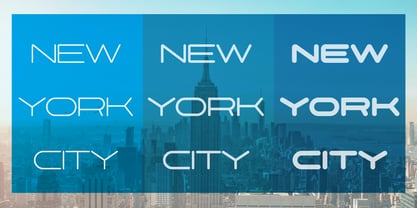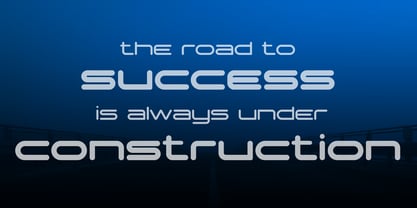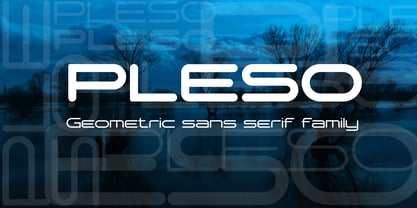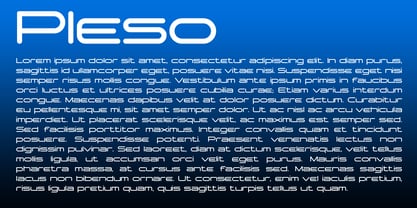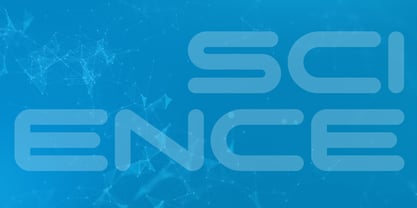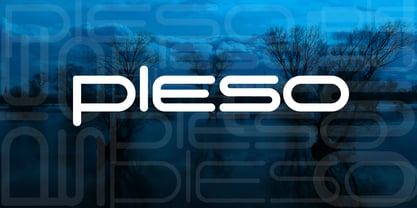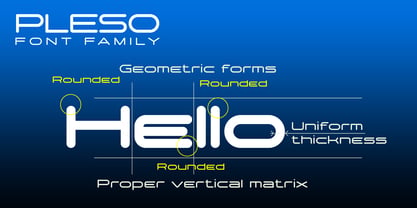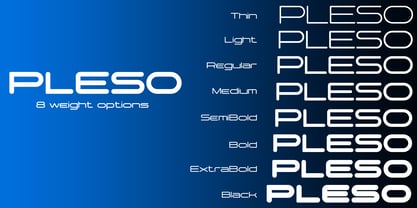
Pleso
by VladB
The Pleso Font Family was designed by Volodymyr Berla and published by VladB. Pleso contains 8 styles and family package options. More about this family
PLESO is a expanded modern sans serif geometric font with rounded edges, includes upper and lower case characters, Latin, Cyrillic, Latin Eastern Europe, Turkish, Baltic and other, 500+ symbols. PLESO family have the 8 types of thickness, divided into 2 subgroups (according to thickness - M (middle), L (large)), and have the 4 types of thickness in each subgroup. PLESO fonts will be useful in developing a brand, creating posters and other graphic products, and for word processing.
Designers: Volodymyr Berla
Foundry: VladB